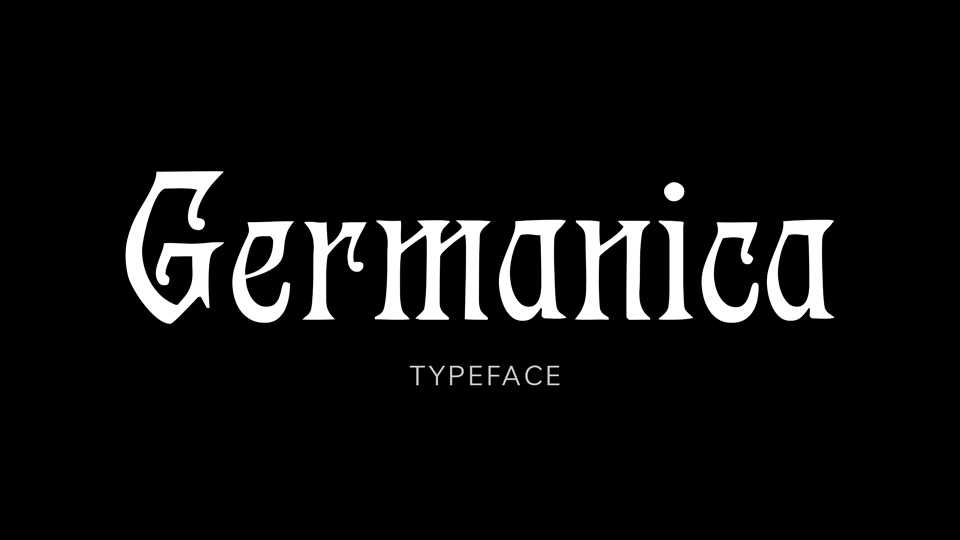
Downloadd Germanica font, a blackletter font based on Tedesca typeface appeared sometime before 1905. It was digitized and extended with Cyrillic and Western European accents.